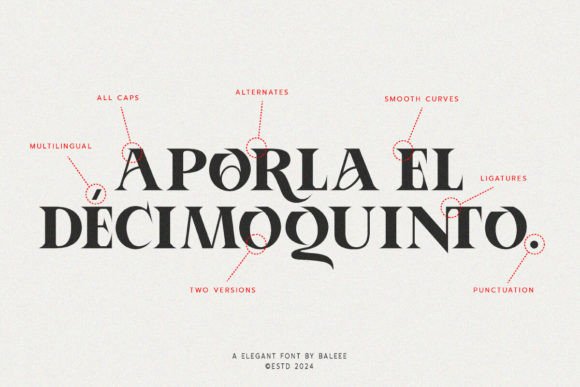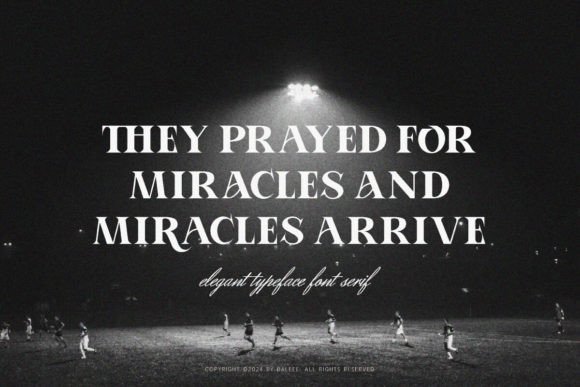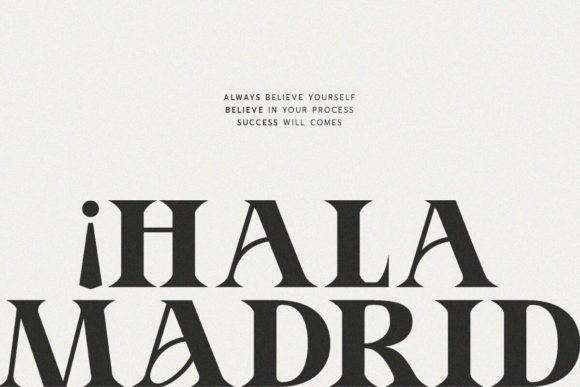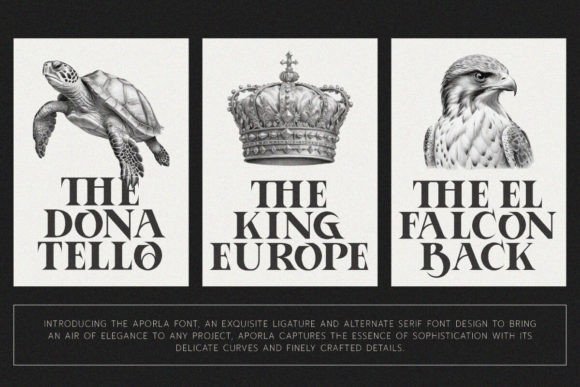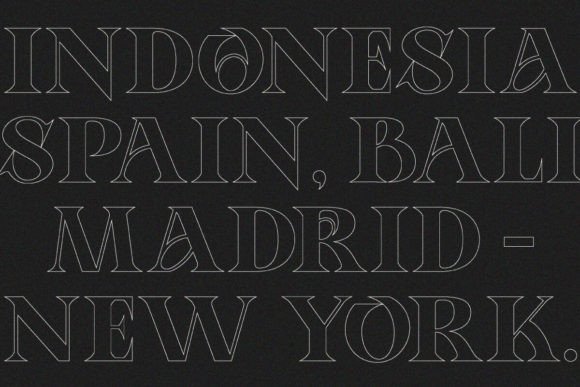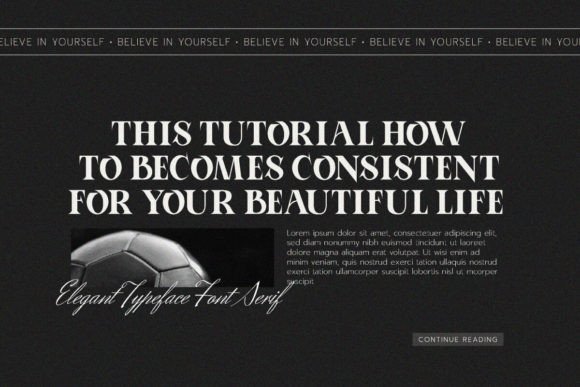
Aporla Font: Elevate Your Designs with Elegance and Sophistication
In the world of typography, fonts play a crucial role in conveying the tone and personality of a design. For designers and crafters seeking to add a touch of elegance and modernity to their projects, Aporla Font is an excellent choice. This beautiful serif font boasts a unique blend of classic sophistication and contemporary flair, making it perfect for a wide range of applications.
What is Aporla Font?
Aporla Font is an elegant serif font designed to bring a sense of refinement and luxury to your designs. Its soft and unique look to the edges of the letters sets it apart from other fonts in its category. The font’s creator aimed to craft a typeface that exudes elegance and authenticity, and Aporla Font certainly delivers.
Key Features of Aporla Font
Aporla Font comes equipped with several features that make it a versatile and desirable choice for designers. Some of its key features include:
- Alternates: Aporla Font offers a range of alternate characters, allowing you to experiment with different styles and variations. This feature enables you to add a personal touch to your designs and make them more engaging.
- Ligatures: The font also includes ligatures, which are special character combinations that create a more fluid and cohesive look. Ligatures can enhance the overall aesthetic of your text and make it more visually appealing.
- Modern feel: Aporla Font’s modern feel makes it suitable for a variety of design applications, from branding and advertising to packaging and digital media.
Who Can Benefit from Aporla Font?
Aporla Font is an excellent choice for a range of designers and crafters, including:
- Graphic designers: Whether you’re working on a branding project, creating marketing materials, or designing a website, Aporla Font can add a touch of sophistication and elegance to your designs.
- Digital artists: If you’re creating digital art, illustrations, or graphics, Aporla Font can be used to add text and typography to your work.
- Crafters: If you’re a crafter, Aporla Font can be used to create beautiful and unique text-based projects, such as signs, posters, and cards.
- Branding and advertising professionals: Aporla Font’s modern feel and elegant appearance make it an excellent choice for branding and advertising projects, where creating a strong visual identity is crucial.
Tips for Using Aporla Font
To get the most out of Aporla Font, consider the following tips:
- Experiment with alternates and ligatures: Take advantage of Aporla Font’s alternates and ligatures to add visual interest and personality to your text.
- Pair with complementary fonts: Aporla Font can be paired with other fonts to create a unique and harmonious typography scheme.
- Adjust font sizes and line heights: Experiment with different font sizes and line heights to create a clear visual hierarchy and enhance readability.
Aporla Font is a stunning serif font that offers a perfect blend of elegance and modernity. Its unique features, such as alternates and ligatures, make it an excellent choice for designers and crafters seeking to add a touch of sophistication to their projects. Whether you’re working on a branding project, creating digital art, or crafting unique text-based projects, Aporla Font is sure to impress. With its soft and unique look to the edges of the letters, Aporla Font is an excellent addition to any designer’s toolkit.